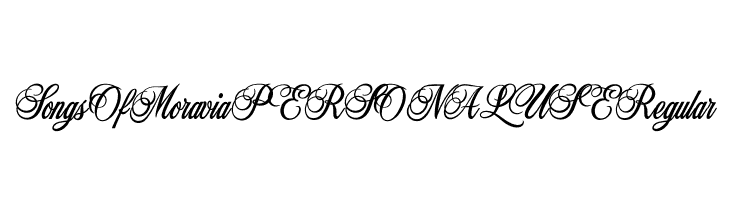
An elegant and ornate script font with flowing, decorative letterforms.
A fluid and elegant handwritten font with a dynamic and artistic style.
A flowing, cursive font with elegant, sweeping strokes and a modern calligraphic style.